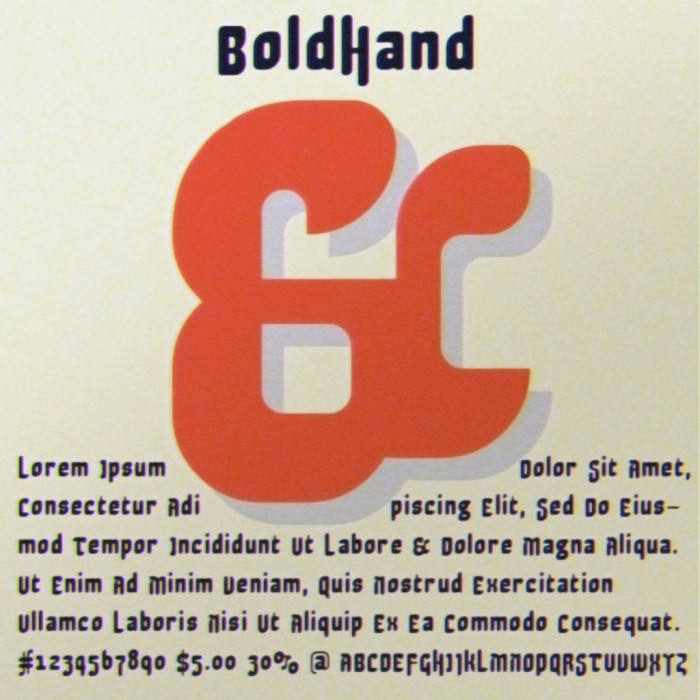
Great work here, especially in the uppercase, I like a lot! Congrats on the well deserved TP!
very nice design, especially how some of the letters seem handwritten yet clean
neat
cool design